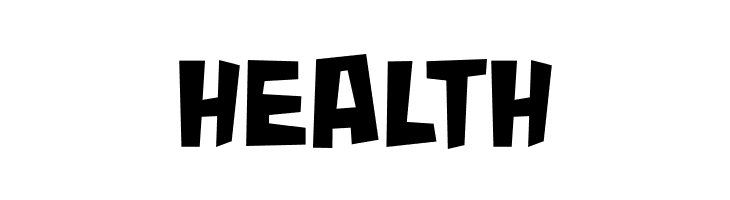
MondoBeyondoBB Font
A bold, playful font with irregular, angular characters and a hand-cut appearance.
MondoBeyondoBB-Bold Font
A bold, decorative font with angular, playful shapes and thick strokes.